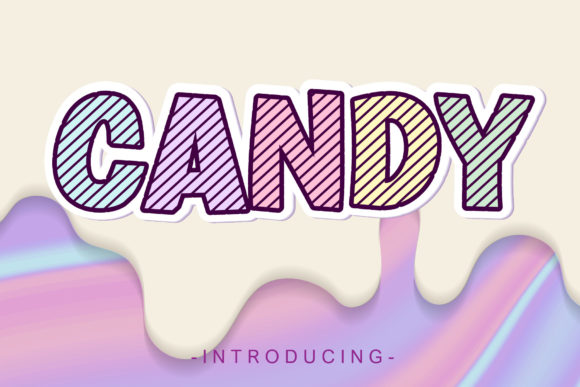
Introducing Candy Font - the perfect addition to your font collection! This adorable display font, created by Fox7, is sure to bring a smile to your face. Whether you're designing a birthday card, creating a cartoon title, or just looking to add a touch of whimsy to your designs, Candy Font is the ideal choice.
With its playful curves and charming style, Candy Font is the best font for birthday cards, invitations, and other celebratory designs. It captures the essence of childhood with its fun, lighthearted appearance, making it the perfect choice for any project aimed at capturing a sense of joy and excitement.
Not only is Candy Font visually appealing, it is also highly functional. Its clear and easy-to-read characters make it an ideal choice for headlines, titles, and subtitles. And, thanks to its unique style, it is perfect for adding a touch of personality and flair to any design.
So why choose Candy Font? Simple. It is the best font for birthday cards and other celebratory designs, with its playful and charming appearance capturing the essence of childhood. It is also highly functional, making it an ideal choice for headlines and titles. And with its unique style, it is sure to add a touch of personality and flair to any project.